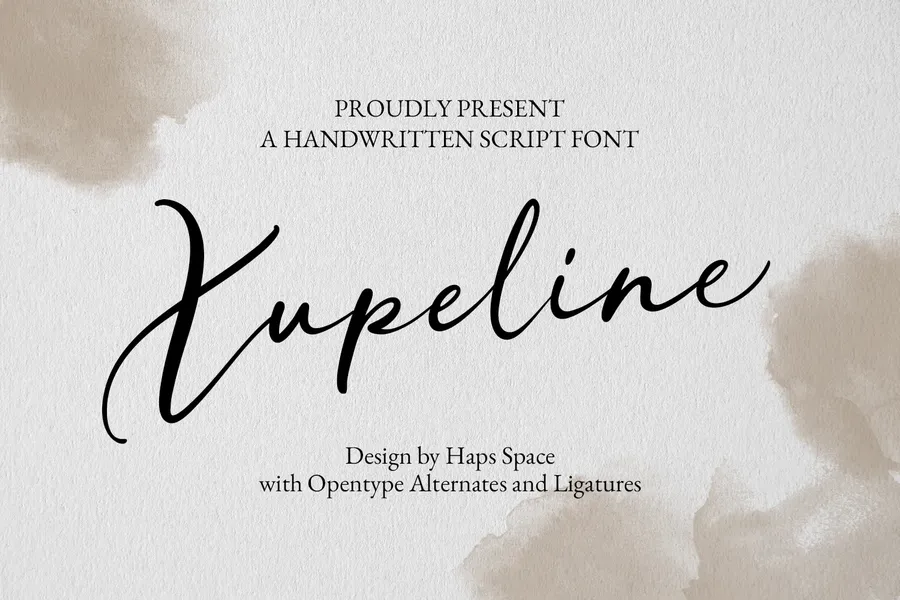
Xupeline – Handwritten Script
The Xupeline font is an elegantly crafted handwritten script. It embodies a delicate and fluid aesthetic, characterized by graceful curves and a natural, authentic handwritten appeal. This font is enriched with OpenType features, including stylistic alternates and ligatures, which allow for enhanced typographic versatility and a more organic, interconnected flow between characters. Xupeline is ideally suited for projects requiring a personal, sophisticated, and artistic touch, such as branding, invitations, stationery, editorial design, and social media graphics. It’s inherent charm and refined expressiveness lend themselves to creating impactful and memorable visual communications.